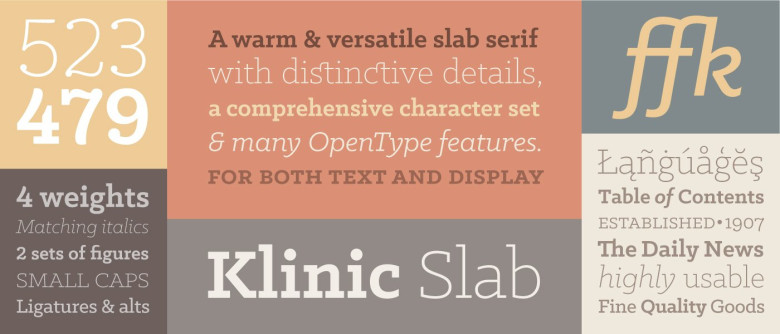
Klinic Slab Font
In 4 weights (and italics), the 8 font Klinic Slab family is one of our most comprehensive releases to date. A contemporary, versatile Slab Serif, Klinic is a workhorse that marries personality and functionality.